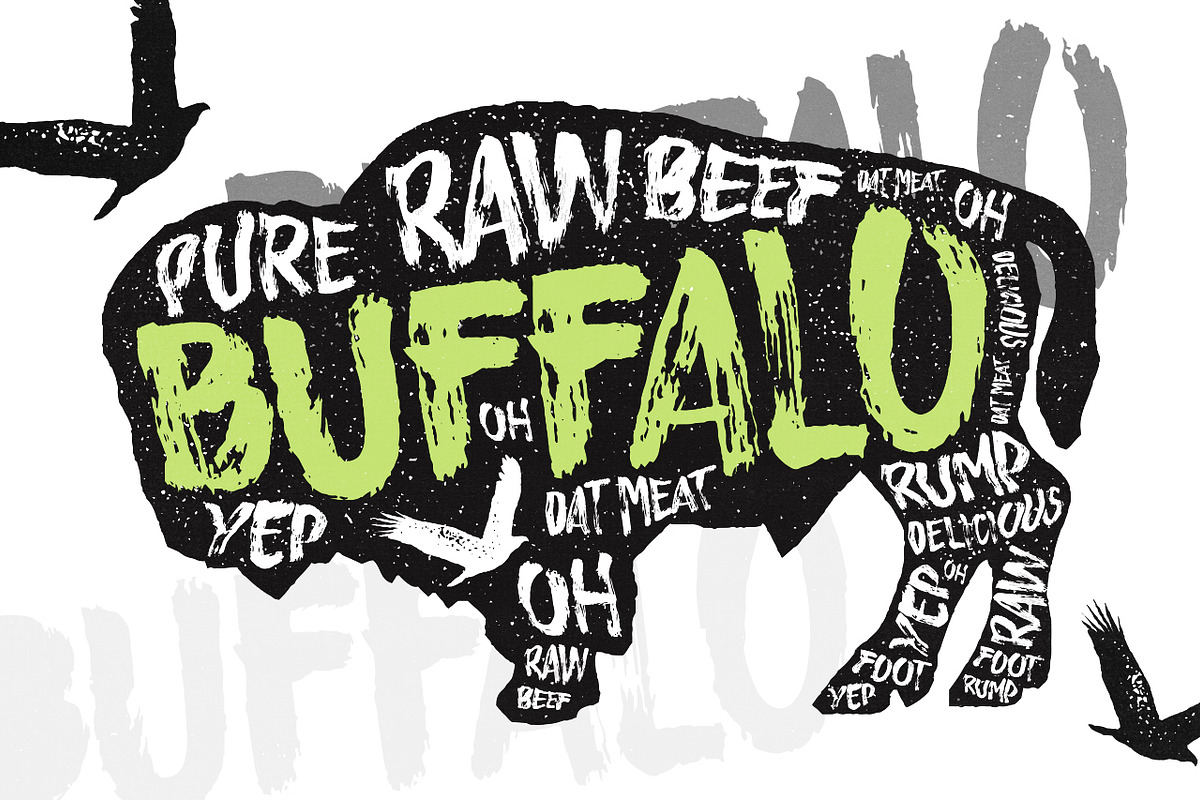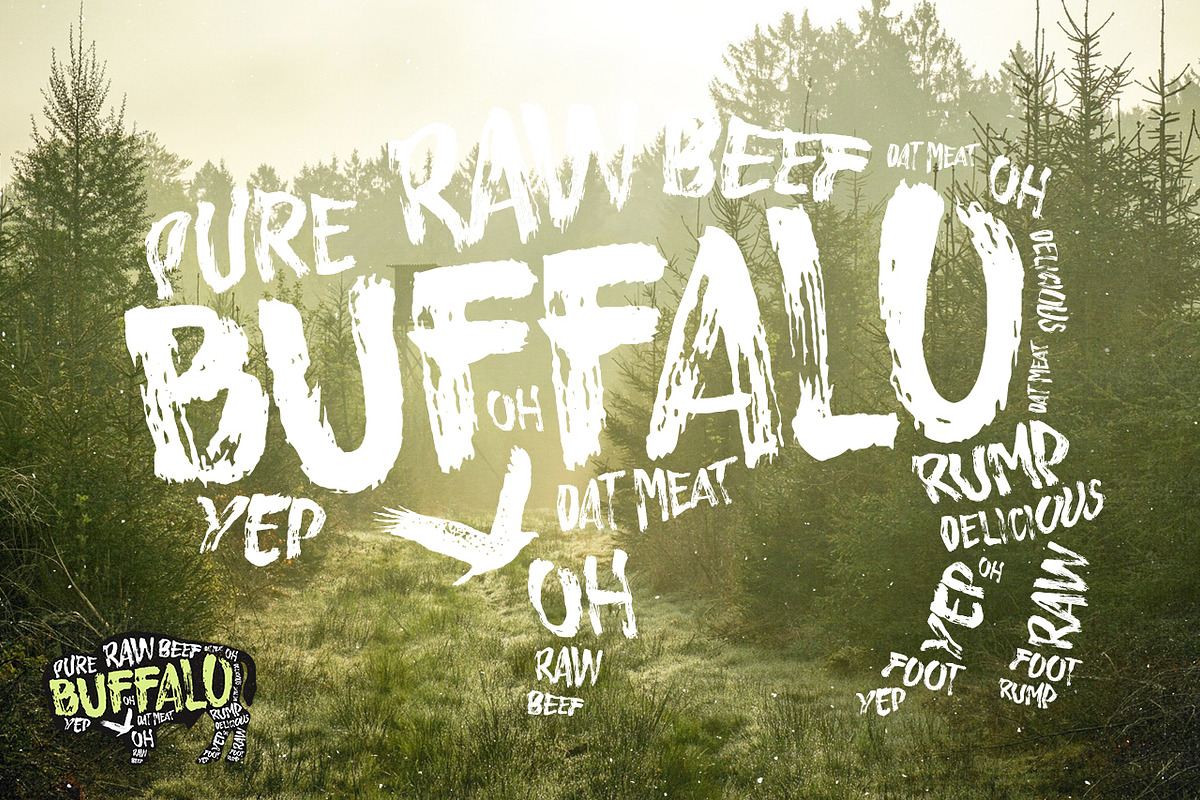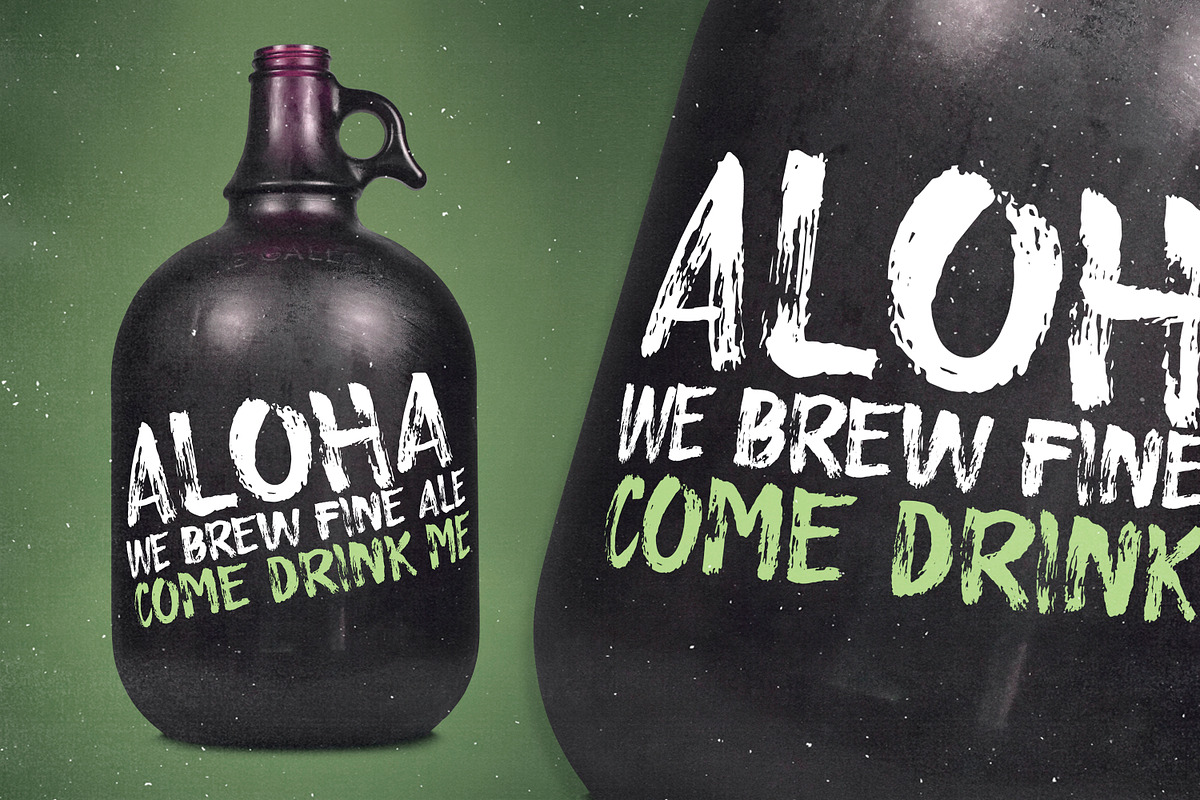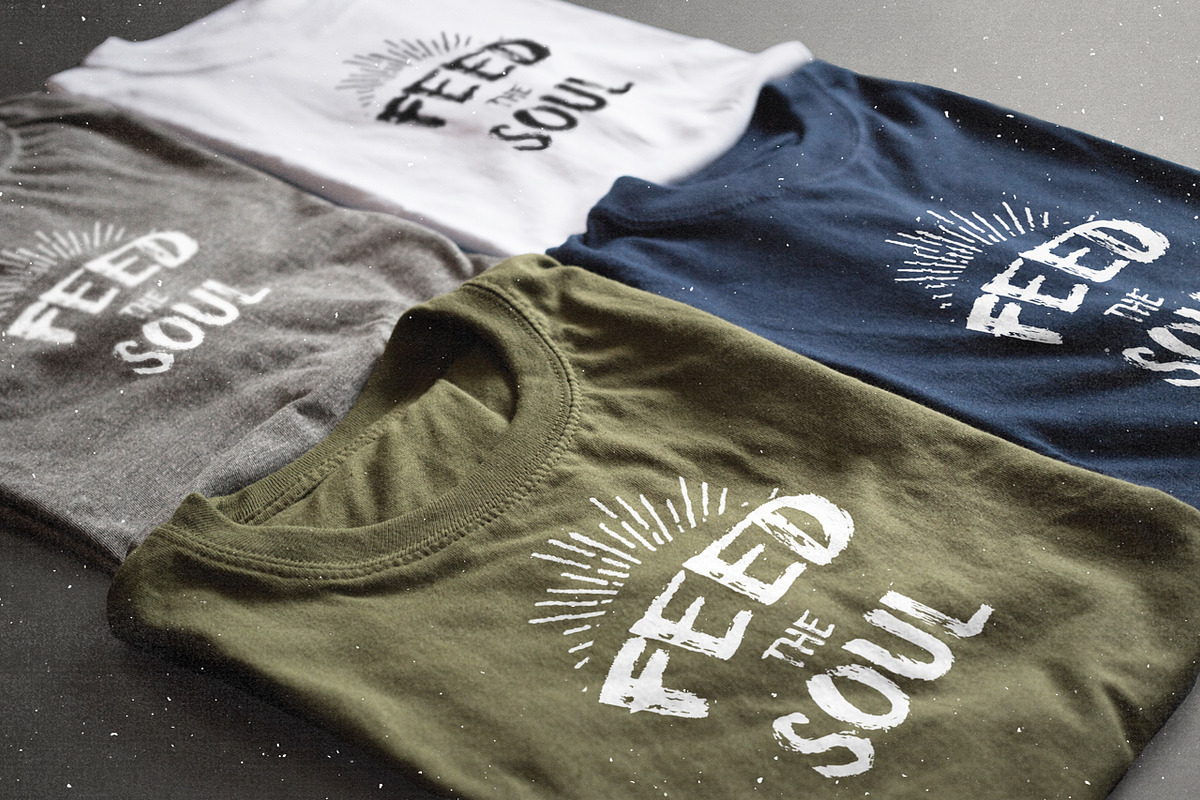
Buffalo - Display Typeface
Buffalo - Display Typeface by Layerform Design Co. is a font selected for branding, posters, packaging, typography.
Why Buffalo - Display Typeface is worth a look
Buffalo - Display Typeface by Layerform Design Co. fits naturally into Branding, posters, packaging, typography.